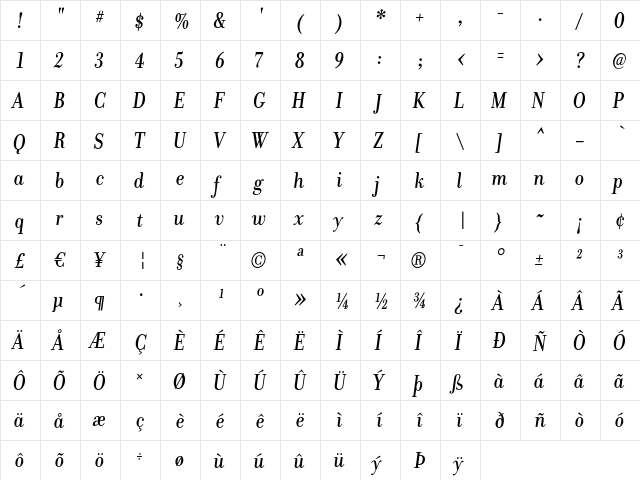
DonatoraMedium Italic
Design Context for DonatoraMedium Typeface
DonatoraMedium is a composed and adaptable typeface that performs quietly and consistently across a wide range of design contexts. Its italic angle brings a sense of urgency and motion to the letterforms.